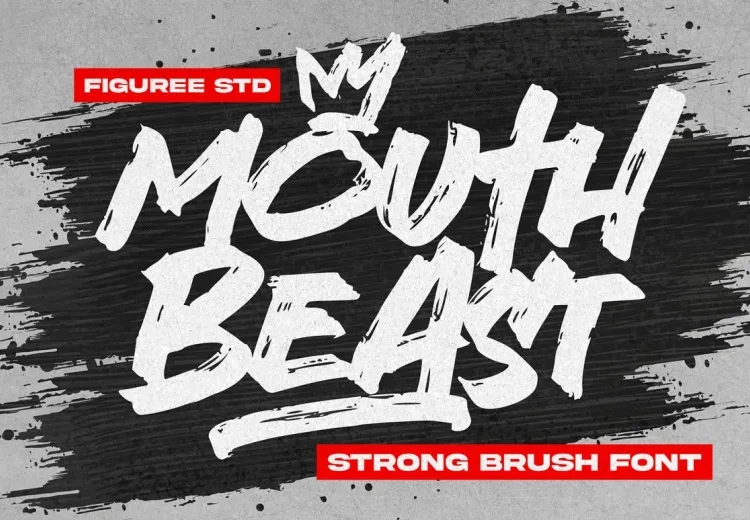
Mouth Beast Font
Mouth Beast is an intense and robust brush typeface crafted to showcase the full spectrum of handcrafted design. With its powerful and dynamic letterforms, Mouth Beast exudes a sense of creativity and strength, making it an ideal choice for projects that demand an energetic and bold aesthetic.
Whether you’re designing eye-catching posters, impactful branding materials, or any project that requires a touch of aggressive, untamed style, Mouth Beast delivers an unforgettable punch. Its distinctive, vigorous design ensures that your text stands out and makes a memorable statement about its content.
Embrace the raw power and creative energy of Mouth Beast to elevate your designs and leave a lasting impression. Perfect for projects that need a touch of dynamic intensity and bold character.